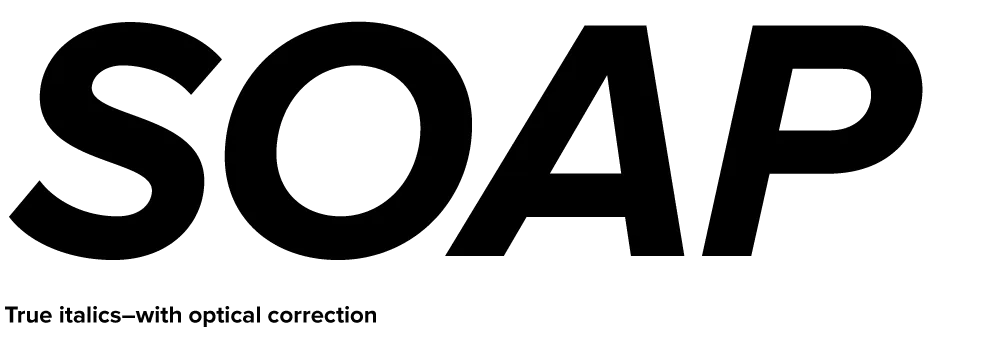
Fake vs. True Italics
Back in March, I mentioned that I was in the final stages of developing a new font family, Proxima Nova. It’s now about three months later and most of that time was taken up by doing the italic.
“What took so long?” you might wonder, “Isn’t it just a matter of slanting the roman version and saving it? That couldn’t take more than an minute or two.” As you may have guessed, it’s not that simple, especially if one wants to do it right. Allow me to illustrate.
Here is a sample set in Proxima Nova Bold:
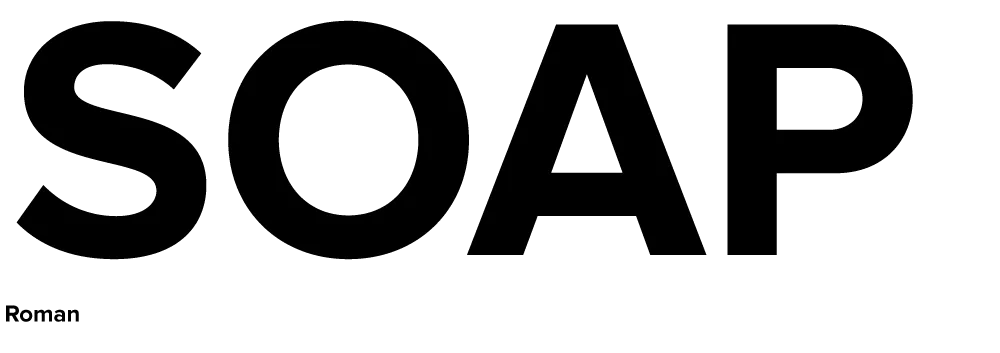
Here it is simply slanted:
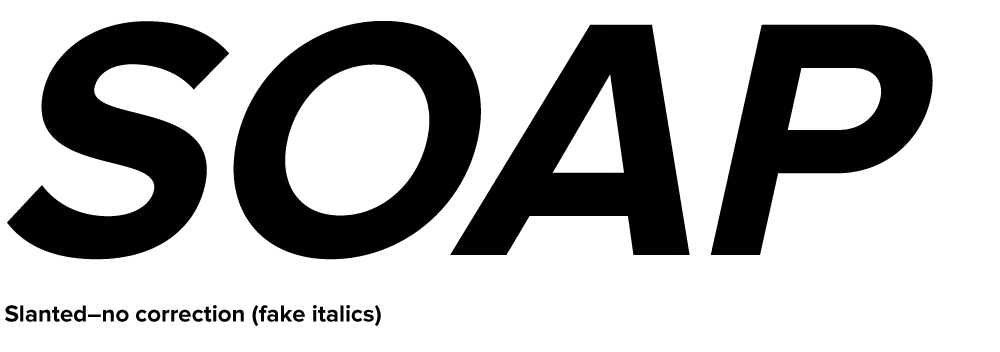
Notice how the curves have become distorted. The subtle modulation of the stroke weight is thrown completely out of whack, getting thinner in some places and thicker in others. This is especially noticeable with the S, O and P. Notice how the O looks kind of squashed. The A is also affected, but the difference is less obvious: the left stroke has become slightly thinner while the right stroke has become slightly thicker.
Characters like E and H, with only vertical and horizontal strokes, are virtually unaffected by slanting. However, any characters which are composed of curves or angled strokes must be optically corrected in a high quality font.
Here is the same sample set in Proxima Nova Bold Italic:
Much better, isn’t it? It takes a lot longer to make all those optical corrections, but the result—a font that simply looks right—is definitely worth it.